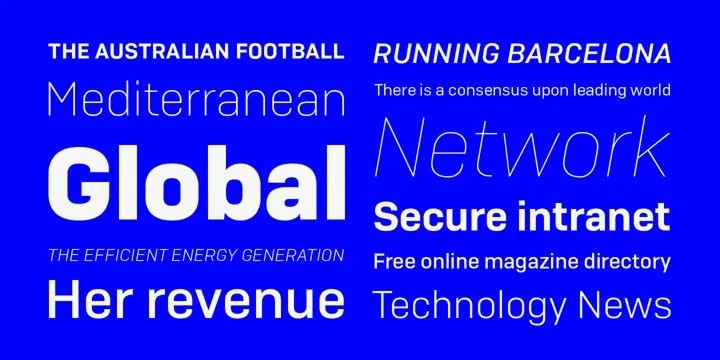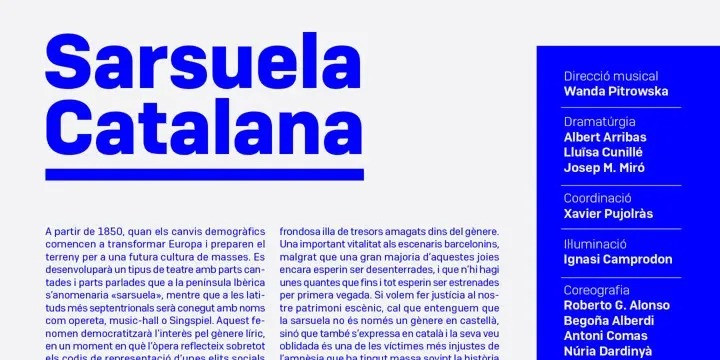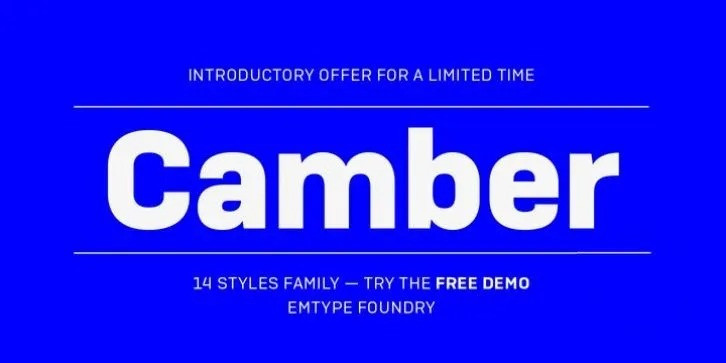
Camber Font
This one took a lot of work, but hopefully, you will like it! Camber Sans Serif Font Family was designed by Eduardo Manso and published by Emtype Foundry. Camber contains 15 styles and family package options.
Camber is the last in a personal series of squarish sans. It is a noiseless typeface with a geometric base, it has a synthetic and clean design, but with a human sensitivity where the geometry fails. It tries to be more versatile and simpler than its predecessors, with a pragmatic approach, having less visual noise and virtually removing the disturbing elements. The family is generous in width meeting a certain shortage of wider fonts. Camber works well in both display and text, it is a multipurpose font suited for magazine, branding and web. The type family consists of 14 styles, 7 weights (Thin, UltraLight, Light, Regular, Medium, SemiBold and Bold) plus italics and it’s available in Open Type format. For more details please see the